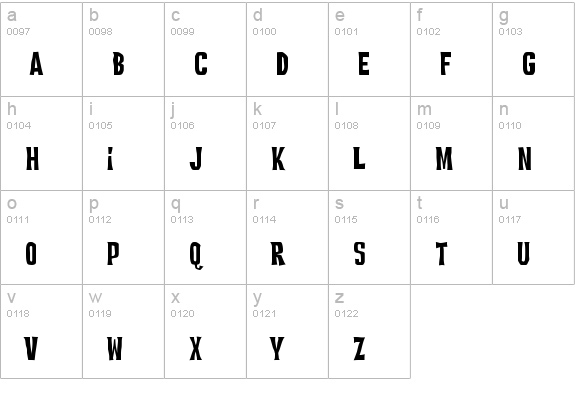
Devil Dog BTN font is a bold and striking typeface that exudes a sense of power and strength. Its sharp edges and unique design make it perfect for headlines, posters, and branding projects that demand attention. With its strong presence and edgy style, Devil Dog BTN font adds a touch of sophistication to any design. The best part is that Devil Dog BTN font is available for free download at FontsMarket.com. This means you can easily access and use this eye-catching font in your projects without any cost. Whether you're a designer looking to make a statement or a creative looking to add a touch of boldness to your work, Devil Dog BTN font is the perfect choice. Download it today and unleash the power of this striking typeface in your designs.